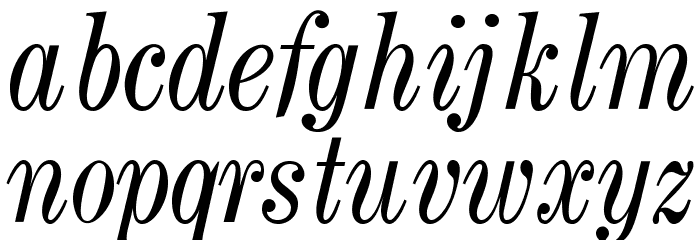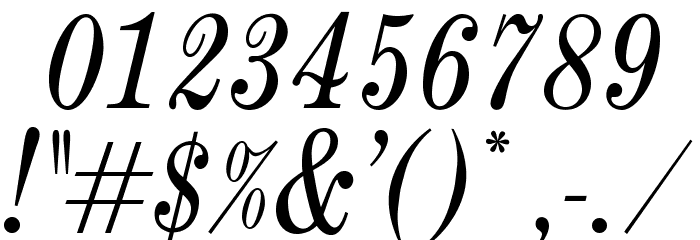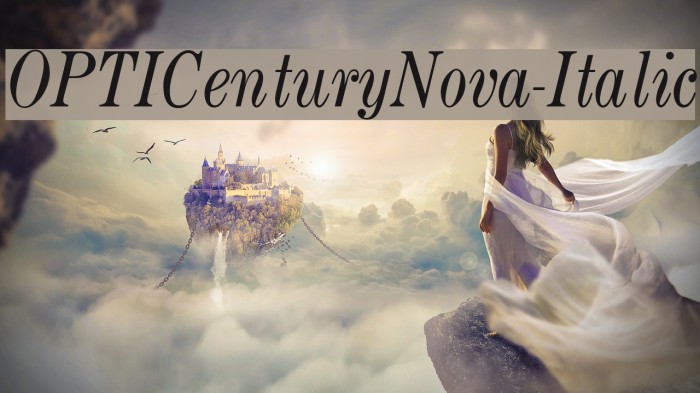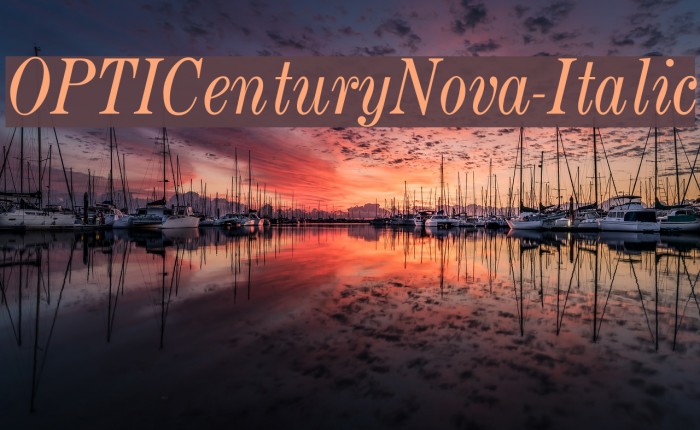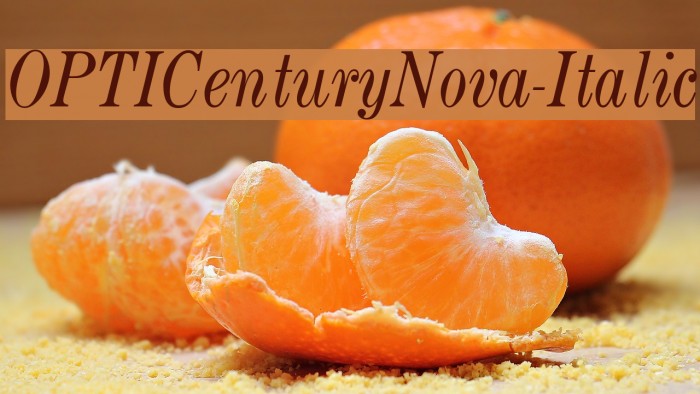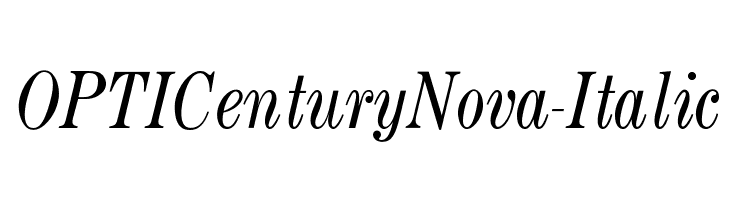
OPTICenturyNova-Italic Font
This font features an elegant and sophisticated italic style, characterized by its smooth curves and refined serifs. The uppercase letters are tall and slightly narrow, giving a sense of formality and grace. The lowercase letters maintain a consistent slant, enhancing the fluidity and continuity of the text. Numbers are well-proportioned, aligning seamlessly with the overall aesthetic. Special characters are designed with the same attention to detail, ensuring they complement the alphabetic characters. The font's contrast in stroke thickness adds to its readability and visual appeal, making it suitable for various design applications.
An elegant italic serif font with smooth curves and refined serifs.
- Proposed Projects: Ideal for use in formal invitations, elegant branding, editorial design, and luxury product packaging.
- Category: Serif
- Overall Style: Classic